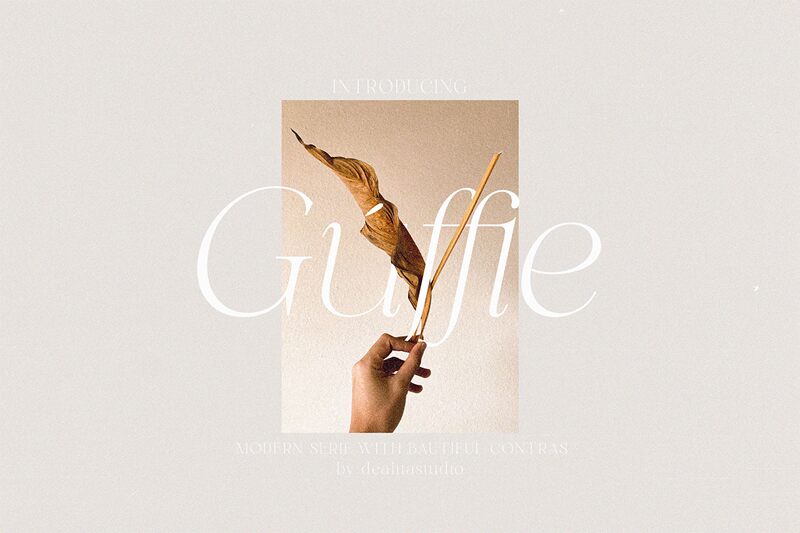
Guffie Italic is a striking serif font that captivates with its graceful lines and soft elegance. Designed by Dealita Studio, this font boasts an exquisite lightness, allowing for a delicate yet impactful presence in any design. Its fluid strokes and refined curves evoke a sense of sophistication, making it perfect for projects seeking an air of charm and creativity.
The unique style lends itself beautifully to branding, invitations, and editorial design, where capturing attention with class is paramount. Guffie Italic’s enchanting character enriches typography with personality, offering versatility across various applications while maintaining a cohesive aesthetic appeal. Its allure lies in the perfect blend of modern flair and timeless elegance, establishing it as a top choice for designers looking to elevate their work.